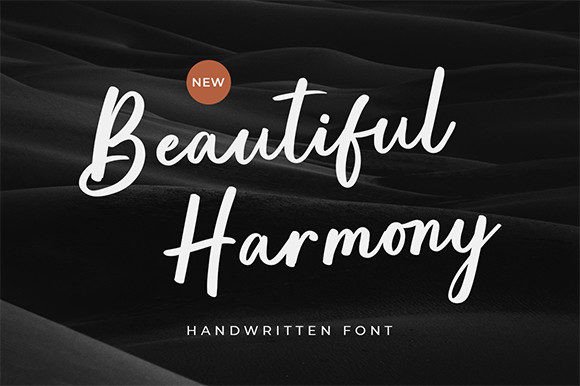
Dive into the world of elegance and sophistication with Beautiful Harmony, a mesmerizing handwritten script font designed by the talented team at Bluestype Studio. Its graceful curves and flowing strokes are crafted to evoke a sense of timeless beauty, making it the perfect choice for those seeking a touch of luxury and charm in their creative endeavors.
Step into a realm where your designs dance with elegance, where each word carries a weight of significance, and where your message commands attention. Beautiful Harmony is not just a font; it's an artistic expression that transforms your words into works of art.
Picture your wedding invitations adorned with Beautiful Harmony's delicate script, each letter an exquisite brushstroke that weaves a tale of love and commitment. Imagine your logo adorned with its refined and sophisticated curves, instantly conveying a sense of professionalism and grace.
With Beautiful Harmony, you'll effortlessly create designs that capture the eye and linger in the memory. Its versatility extends beyond wedding videos, seamlessly adapting to a myriad of projects, from T-shirts and logos to advertisements and clothing. Its charm knows no bounds, adding a touch of elegance to every creation it graces.
Let your creativity soar as Beautiful Harmony takes you on a journey of artistic expression. Whether you're a seasoned designer or just starting your creative journey, this font will elevate your work to new heights. Embrace the beauty of handwritten elegance and make a statement that speaks volumes.